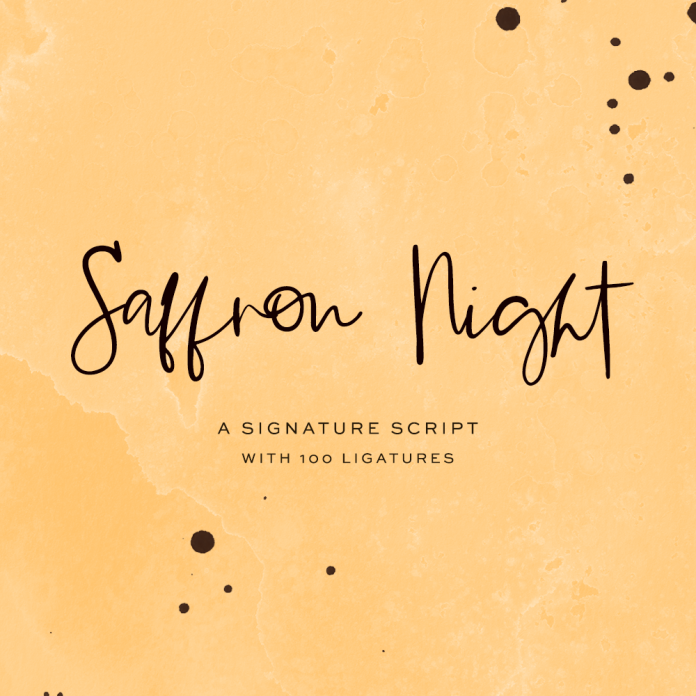
Meet Saffron Night Signature Script, a handwritten font that mimics the look & feel of random scrawly notes and journal pages. A bit feminine in nature, Saffron Night is an excellent fit for a luxury project that needs an edgy and moody element. Saffron Night Signature Script includes a set of lowercase alternates so that you can customize your text just a bit more, and an astounding 100 ligatures that make this font super powerful and unique.
Saffron Night Signature Script is an excellent fit for:
- logo design + branding projects
- print design, like magazines & flyers that need a bold statement font
- header elements + websites that draw attention
- projects in the fashion industry, high end creatives, and luxury product lines